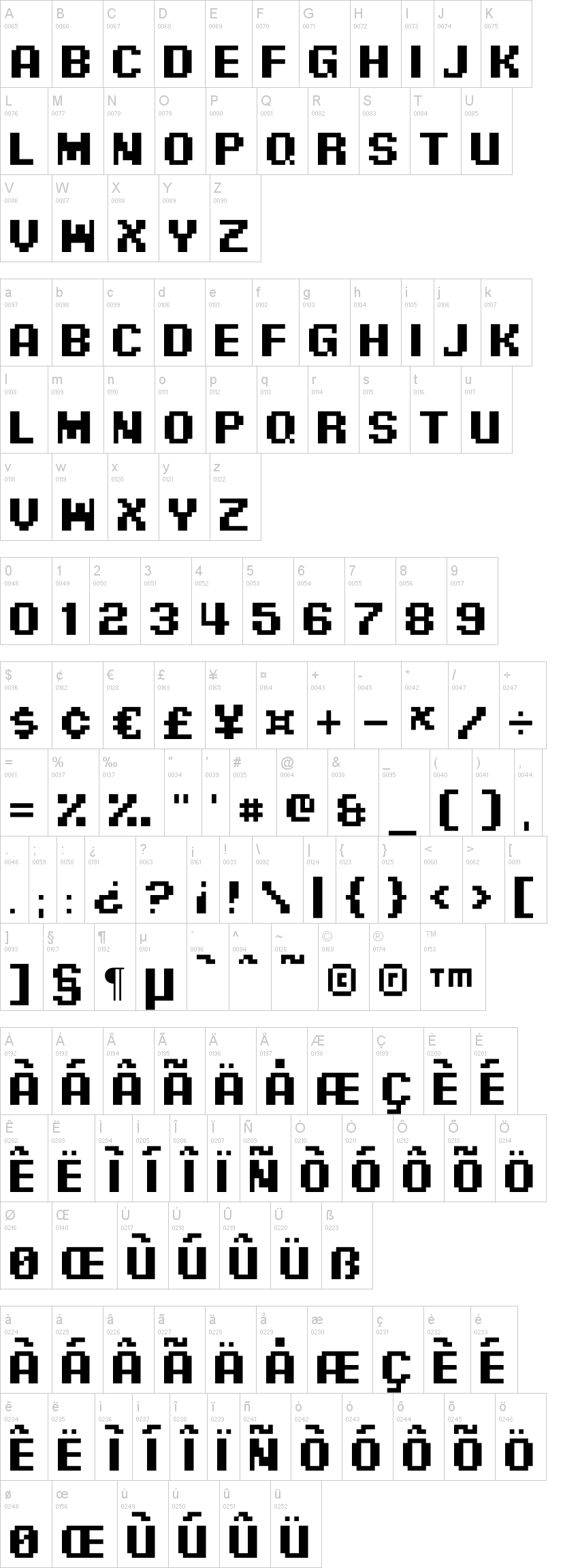
Pixel Digivolve Italic.otfNote of the authorPixel Digivolve is a simple faux pixel face based loosely on the title logo from the classic Digimon series. Includes full alpha-numerics, extended punctuation, Euro. Includes regular and italic faces.